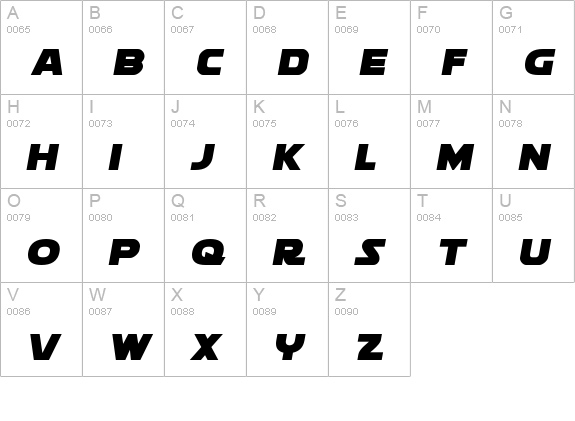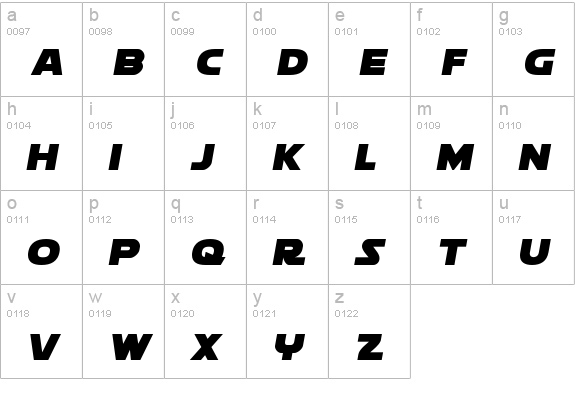
Soloist Font Details
Soloist is a donationware font in the Modern > Sci-Fi category, designed by Iconian. It has been downloaded 108 times and is available for Windows, Mac and Linux.
Introducing Soloist font, a stunning display typeface that effortlessly captures attention with its sleek and modern design. Crafted with precision and creativity, Soloist exudes a sense of elegance and sophistication, making it a perfect choice for a wide range of projects.
With its clean lines and unique charm, Soloist font adds a touch of refinement to any creative endeavor. Whether you're designing a logo, poster, branding materials, or any other graphic project, Soloist is sure to make a lasting impression.